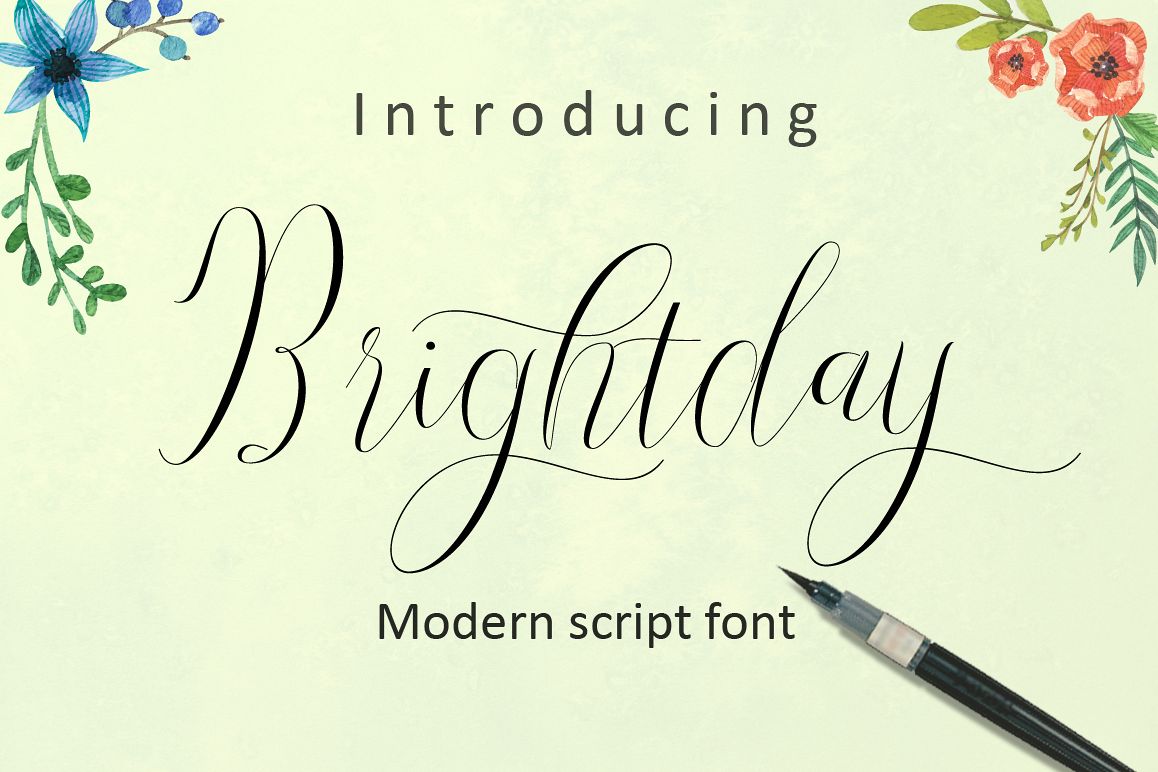
Brightday
Brightday is modern script font, every single letters have been carefully crafted to make your text looks beautiful. With modern script style this font will perfect for many different project ex: quotes, blog header, poster, wedding, branding, logo, fashion, apparel, letter, invitation, stationery, etc.
Brightday come with 608 more glyphs. The alternative characters were divided into several Open Type features such as Stylistic Sets, Stylistic Alternates and Ligature. The Open Type features can be accessed by using Open Type savvy programs such as Adobe Illustrator, Adobe InDesign, Adobe Photoshop Corel Draw X version, And Microsoft Word, And this Font has given PUA unicode (specially coded fonts). so that all the alternate characters can easily be accessed in full by a craftsman or designer.
-Initial Alternates
-Terminal Alternates
-Standard ligatures
-Multiple Language
-Stylistic Alternates
-Stylistic sets
-Basic Latin A-Z and a-z
-Numbers
-PUA Encode